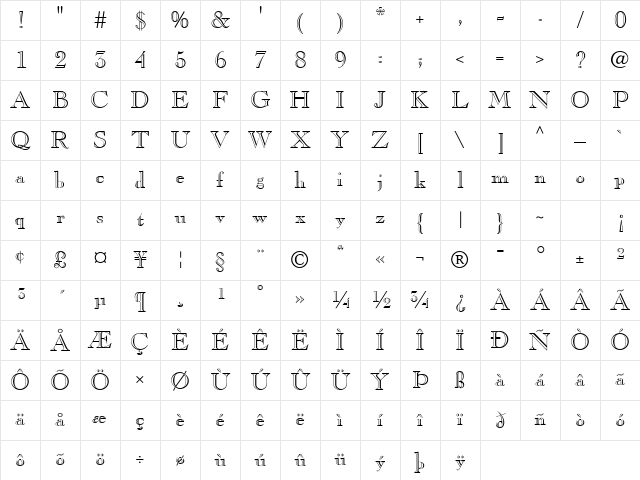
Chopin Open Face Free Font
Chopin Open Face
Style: Open Face
Design Context for Chopin
Chopin is a composed and adaptable typeface that performs quietly and consistently across a wide range of design contexts.